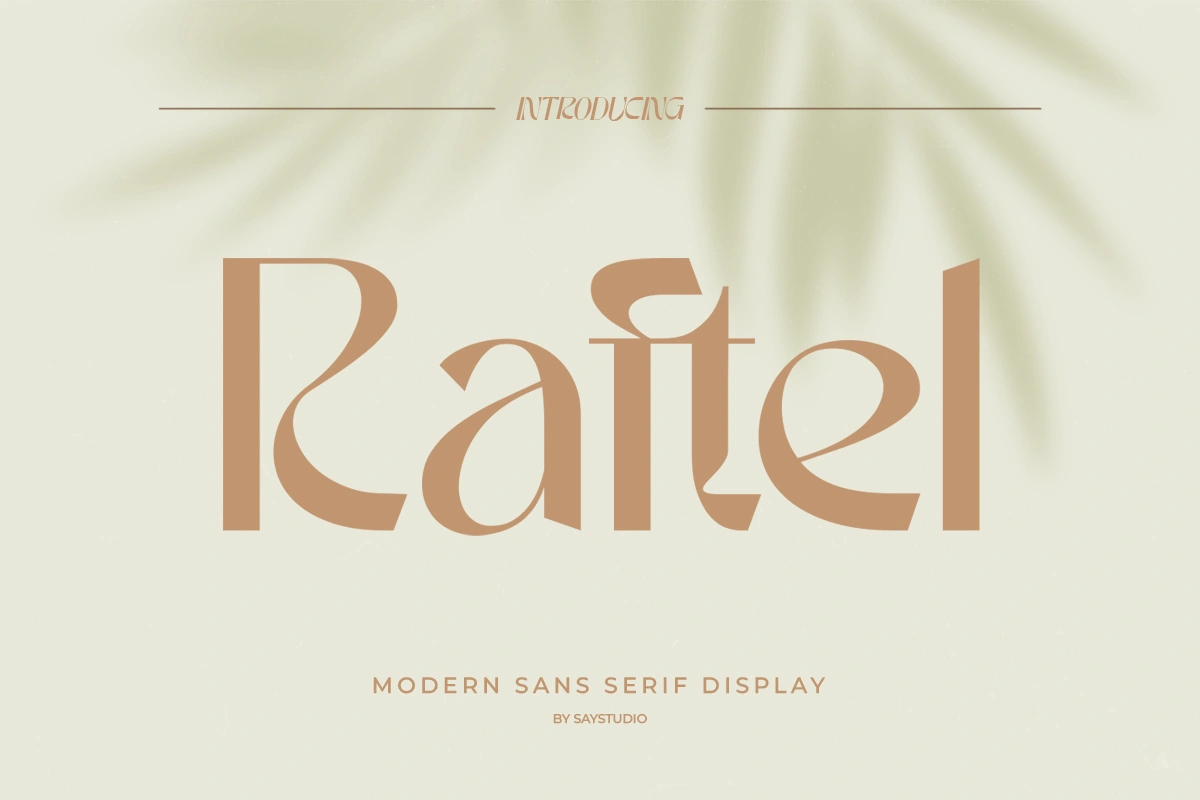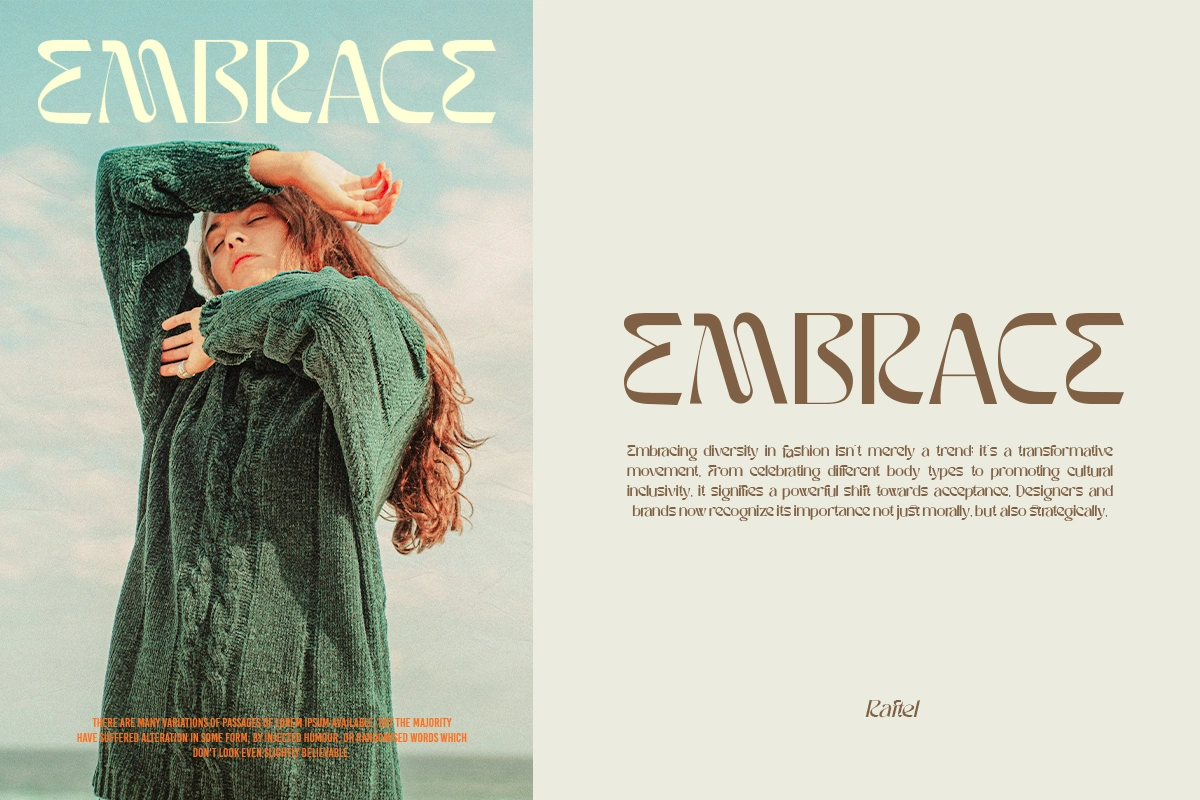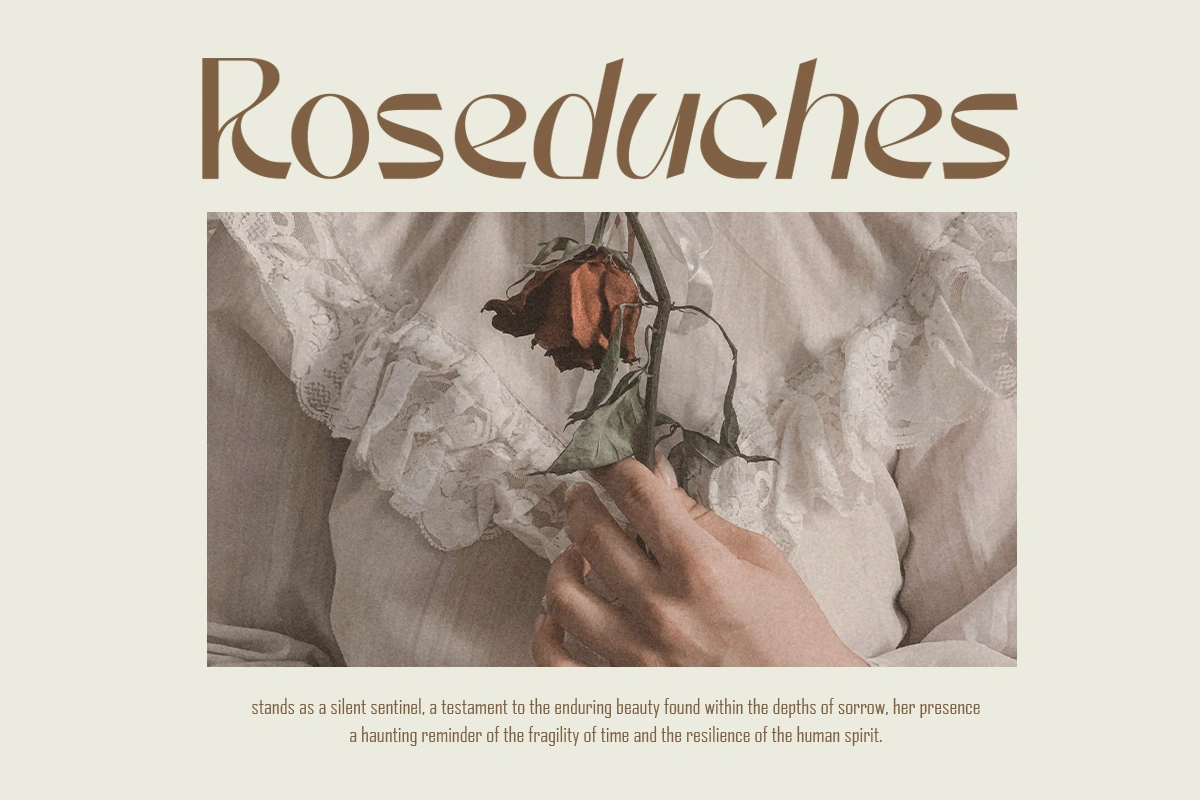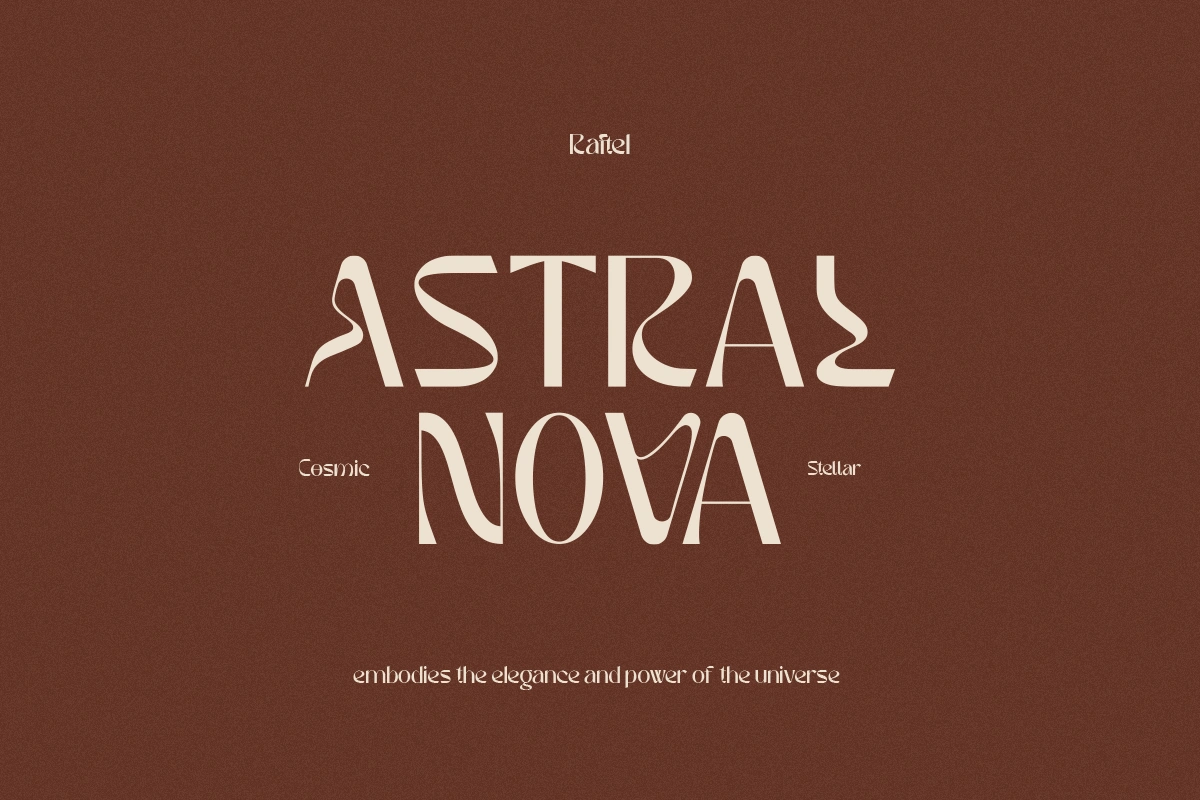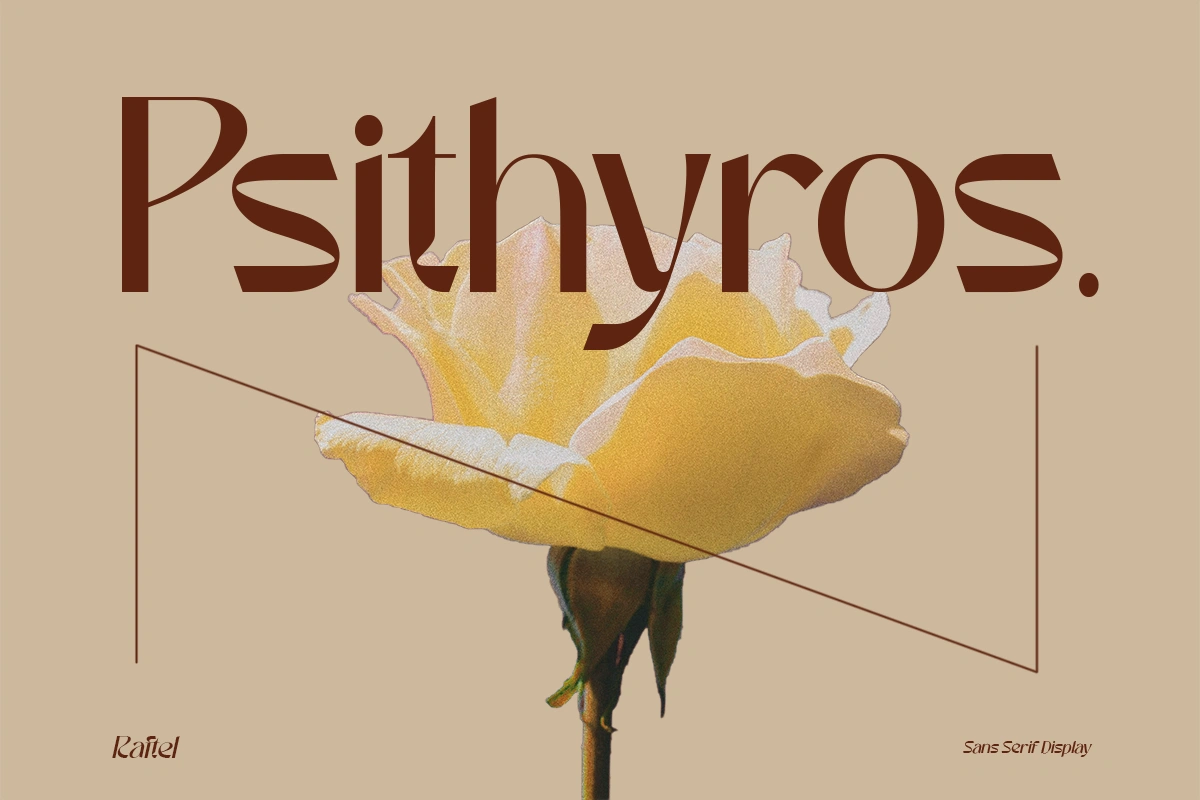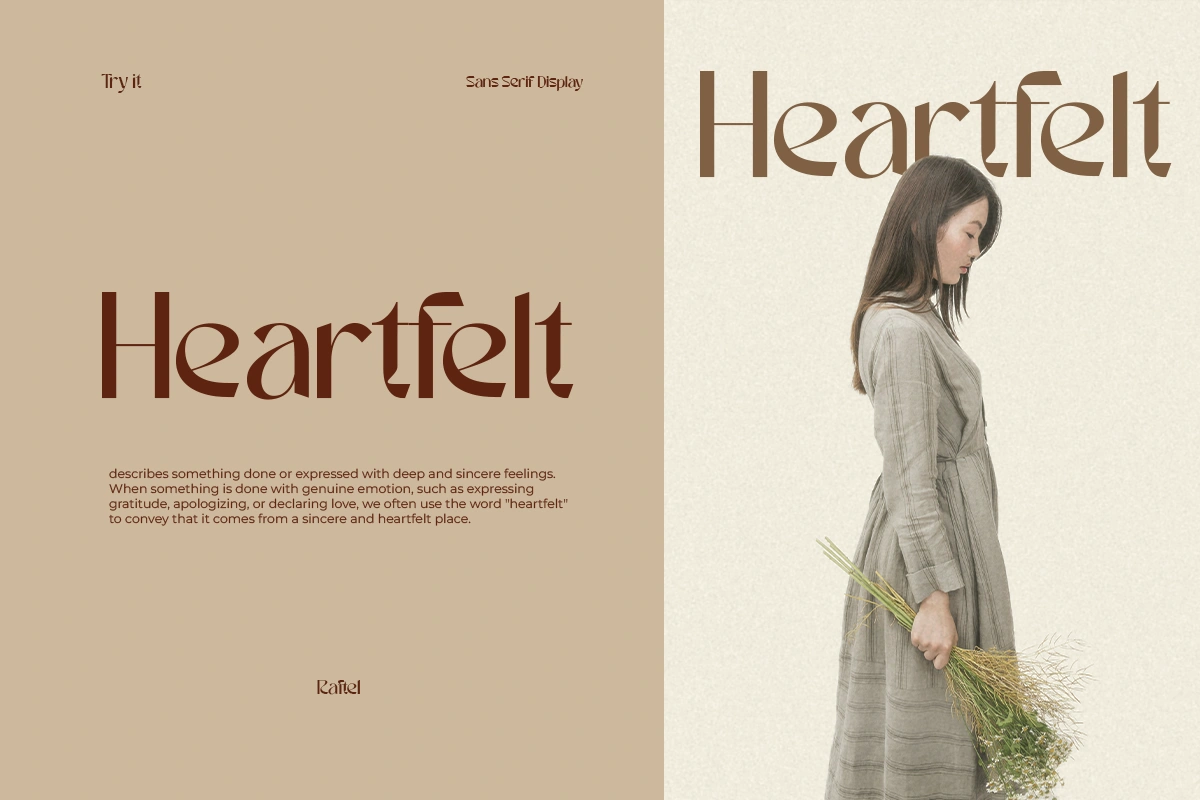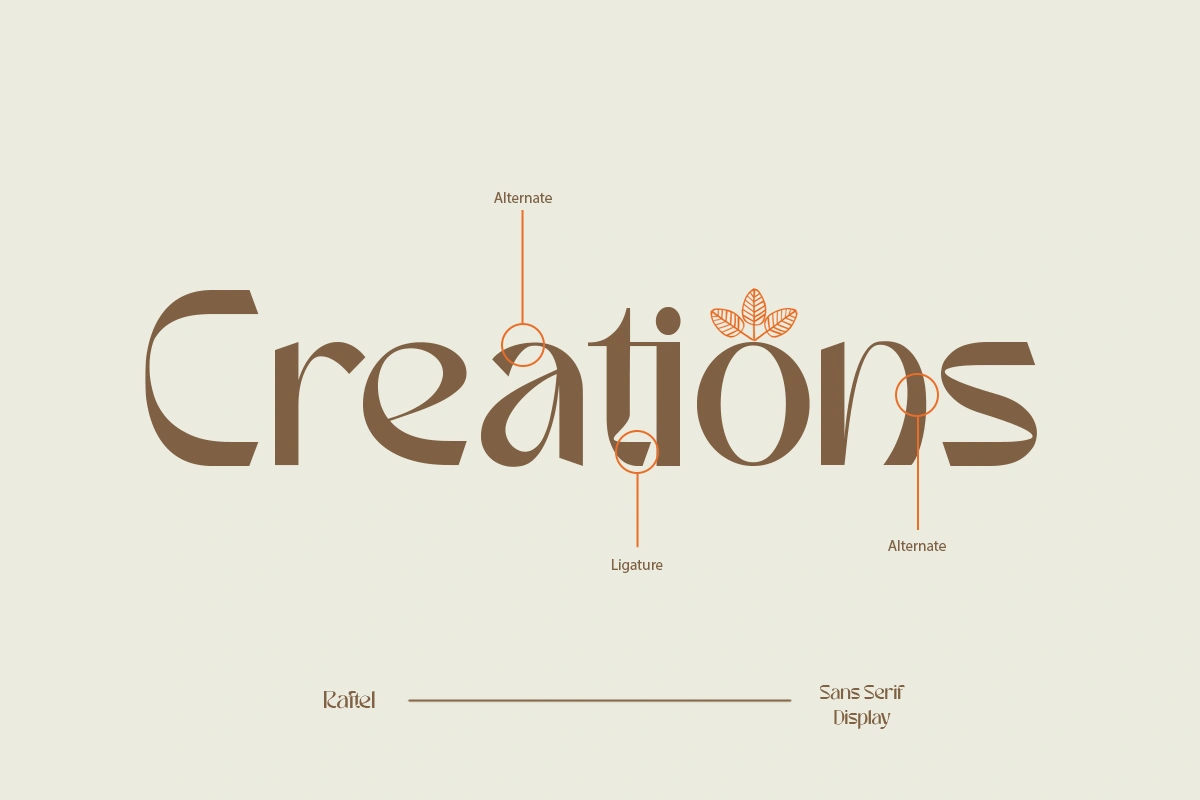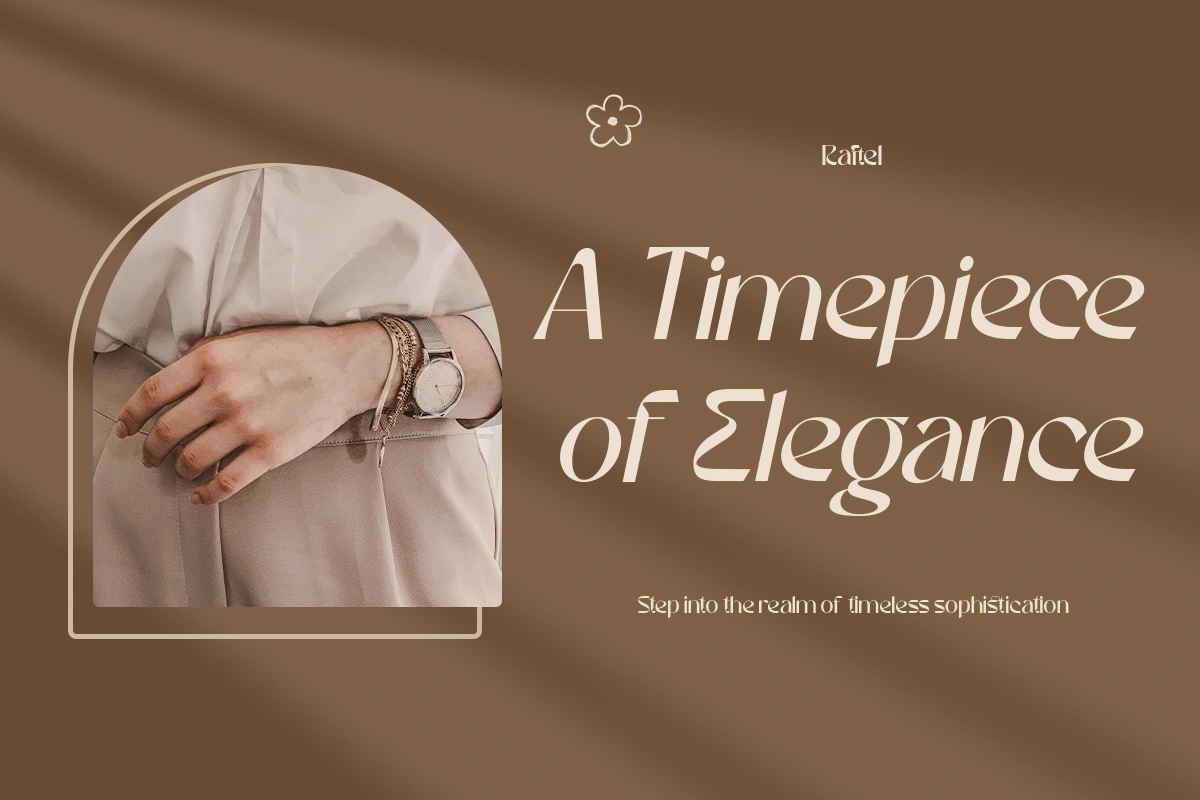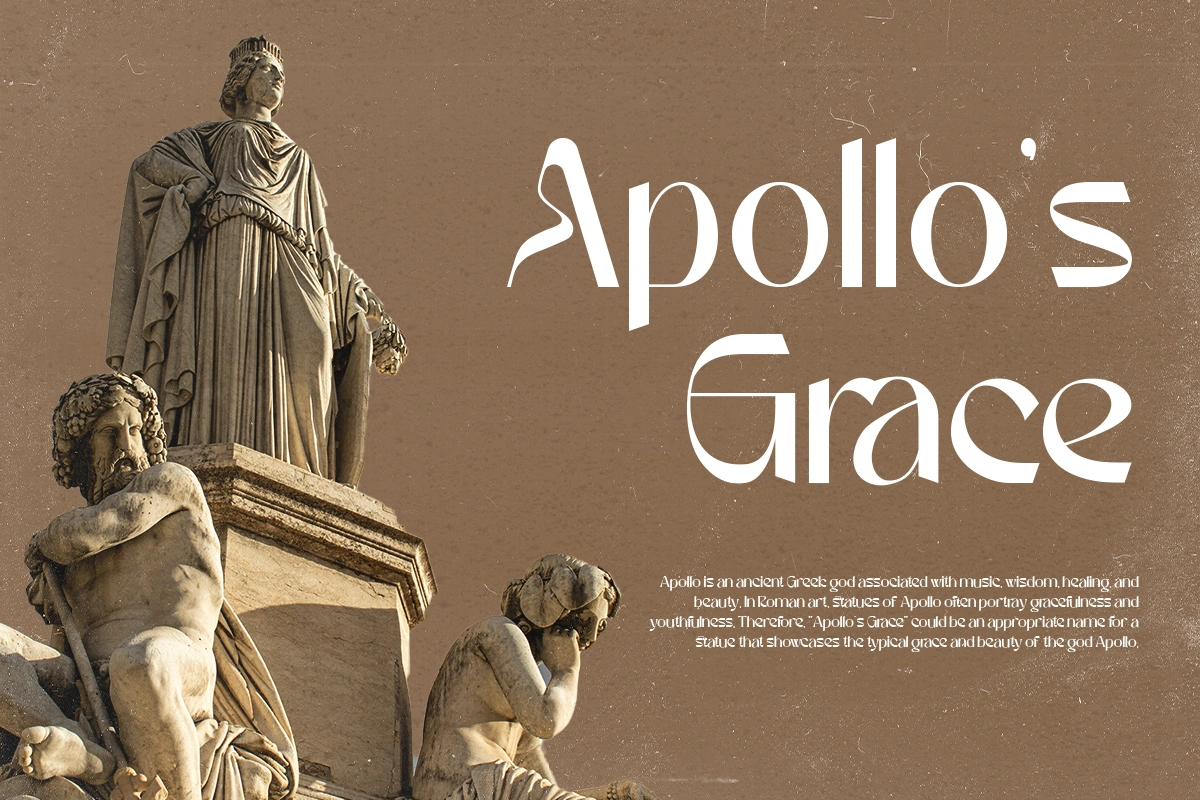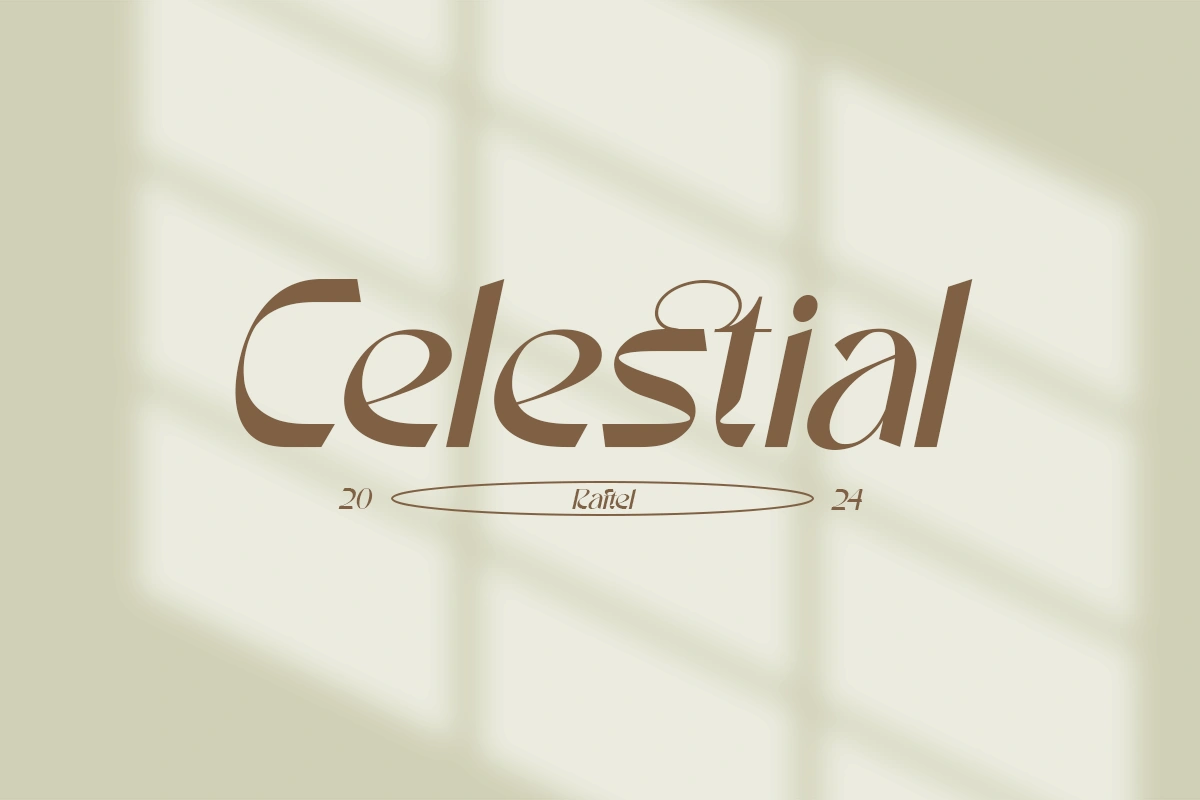
Raftel – Sans Serif Font
Introducing Raftel – Modern Sans Serif
An elegant typeface, Raftel is perfect for corporate identities, websites, publications, titles, books, magazines, business cards, logos, product labels, packaging, or any kind of advertising purpose.